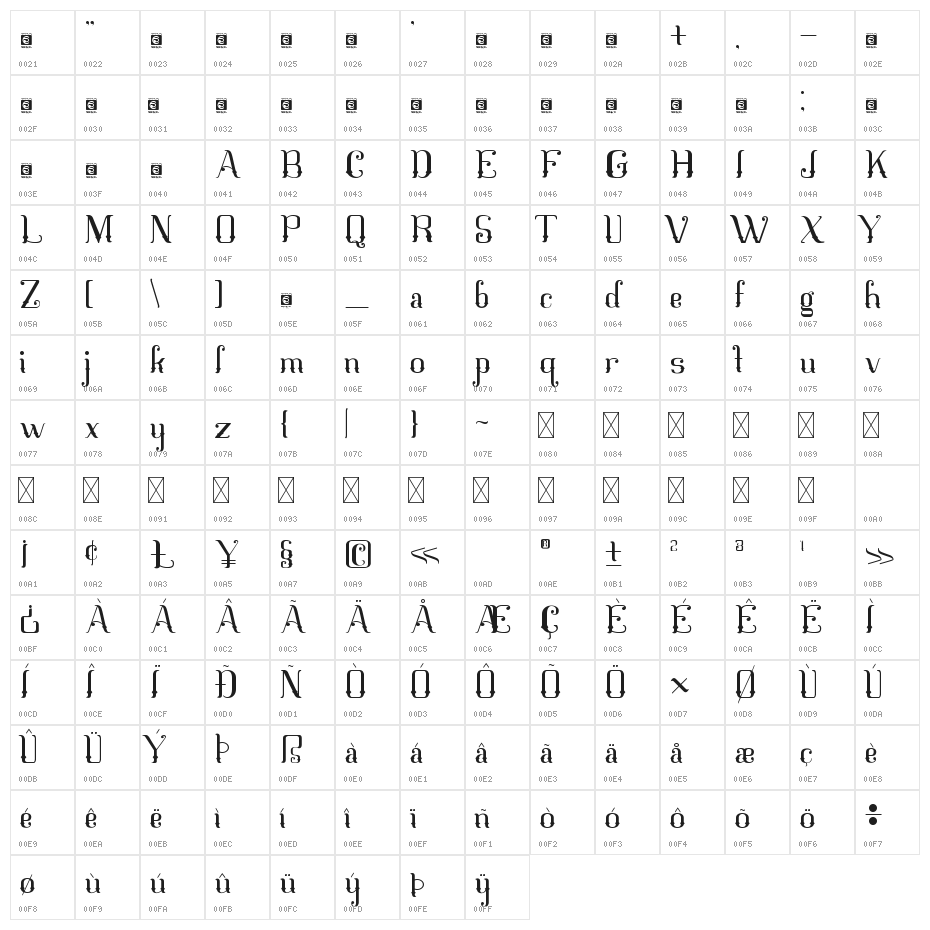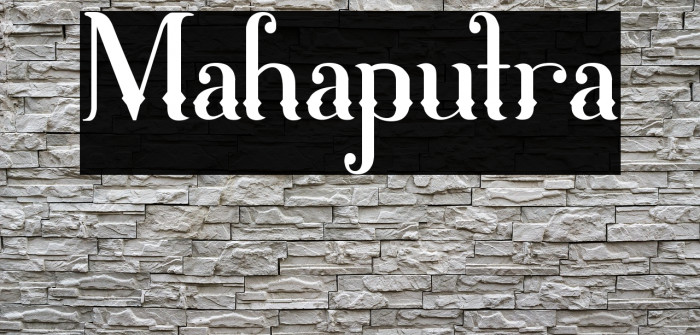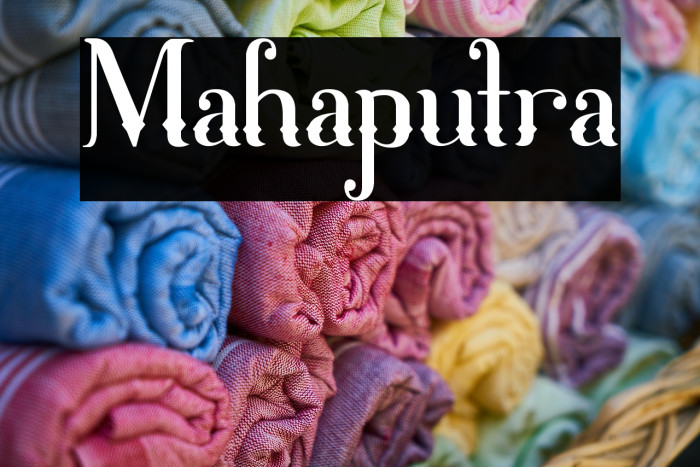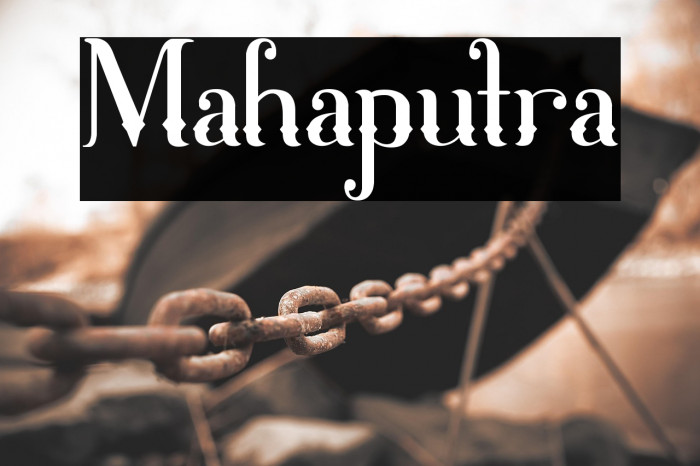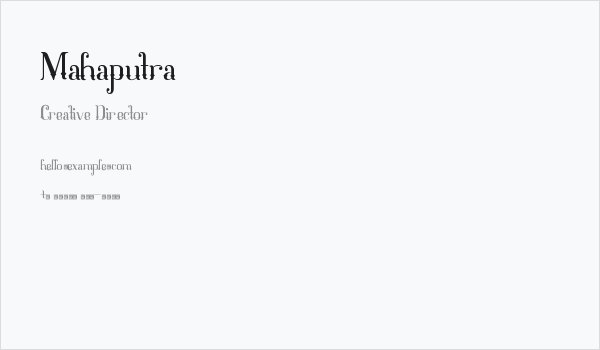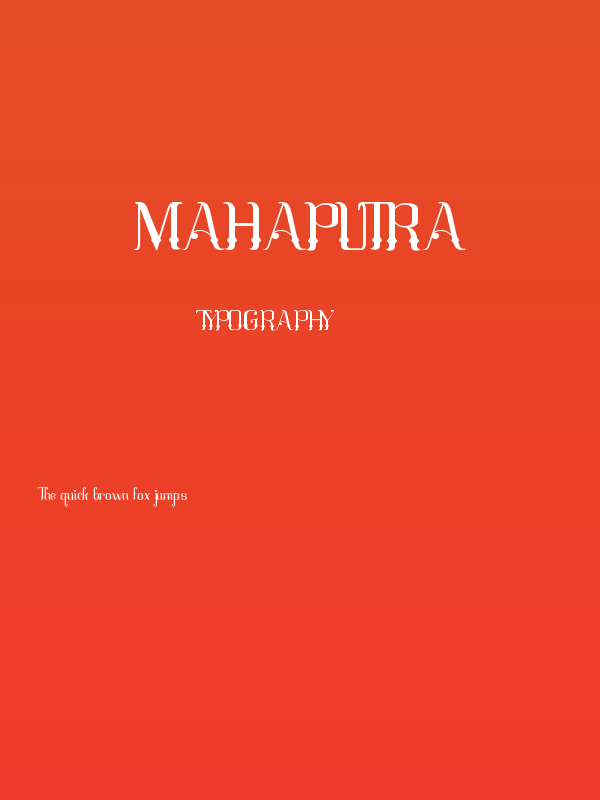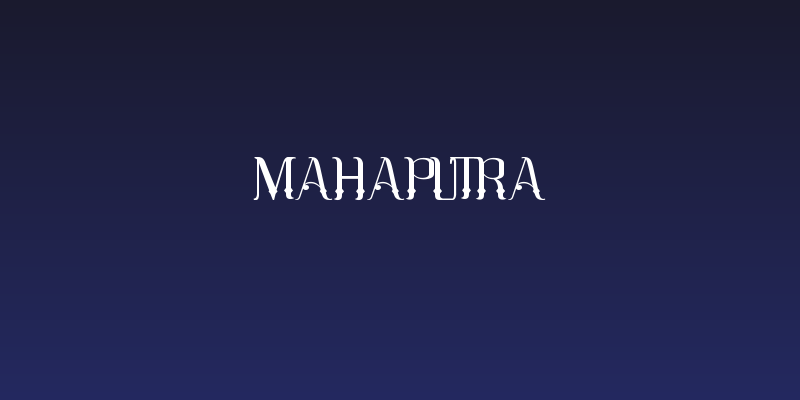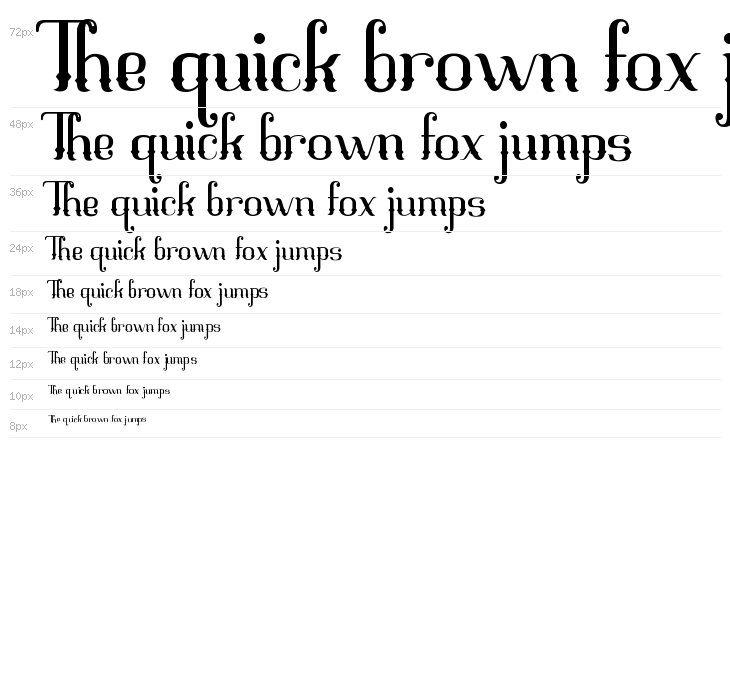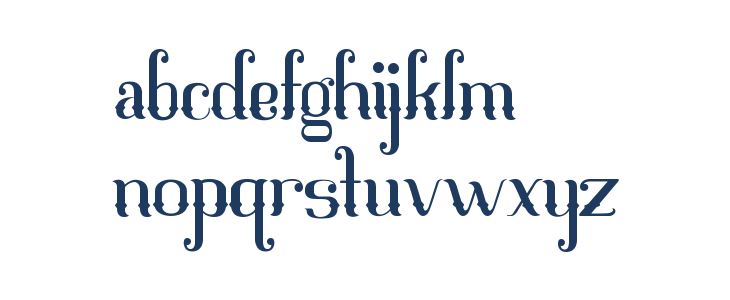
Mahaputra Font
Mahaputra Description
This font exhibits a unique blend of modern and vintage styles, characterized by its bold and decorative elements. The uppercase letters feature intricate serifs and flourishes, giving them a distinctive and ornate appearance. The lowercase letters maintain a similar decorative style, with consistent stroke thickness and elaborate curves. The numerals and special characters are designed to match the overall aesthetic, providing a cohesive look across all glyphs. This font's design is both eye-catching and sophisticated, making it suitable for a variety of creative applications.